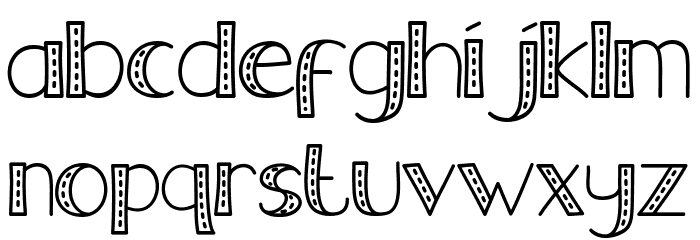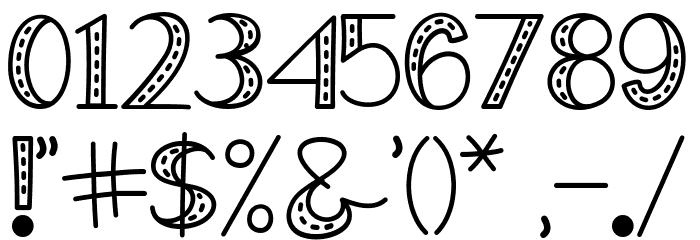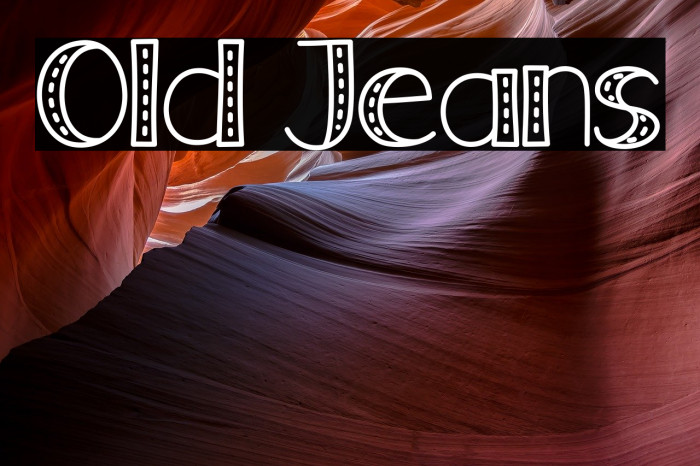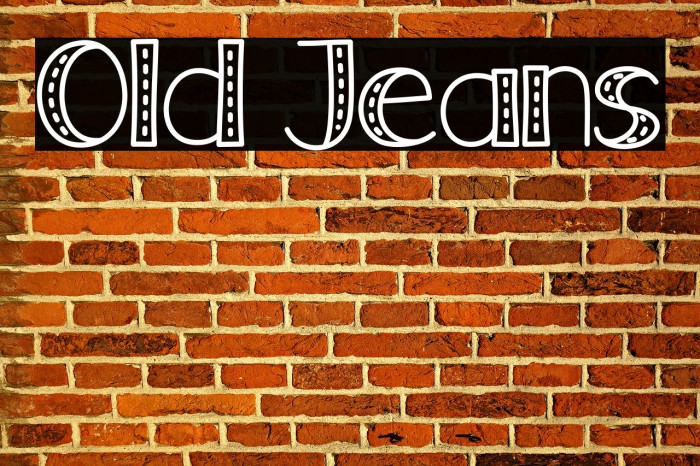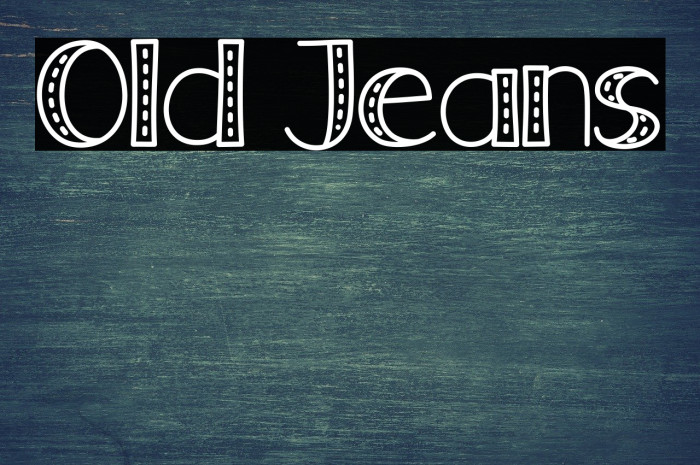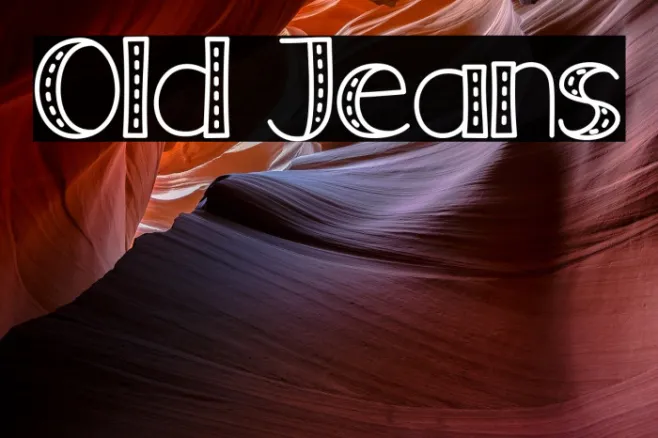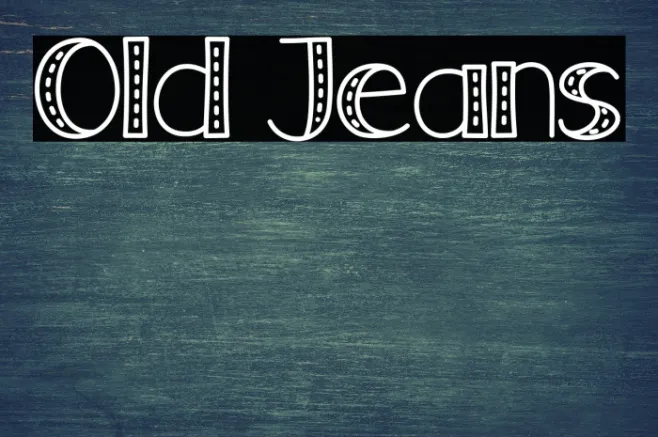
Old Jeans Font
This font features a playful and decorative style, characterized by its unique dotted pattern within each letter. The uppercase letters are bold and eye-catching, with a consistent use of dots that add a whimsical touch. The lowercase letters maintain the same playful aesthetic, offering a harmonious balance between the two cases. The numerals are equally distinctive, ensuring they stand out in any design. Special characters are included, maintaining the same dotted theme, which adds to the font's cohesive look. This font is perfect for projects that require a fun and engaging typeface.
A playful, dotted decorative font with a whimsical style.
- Proposed Projects: Ideal for children's books, playful branding, party invitations, and creative posters.